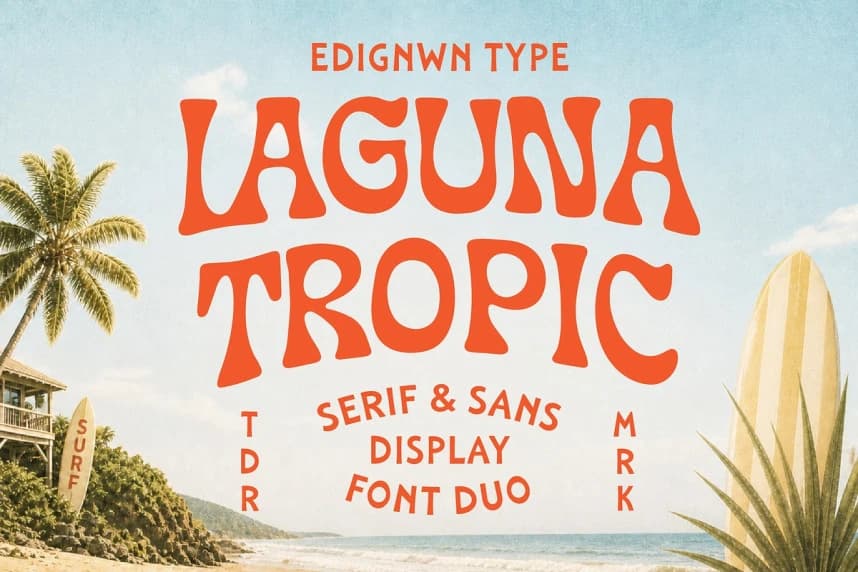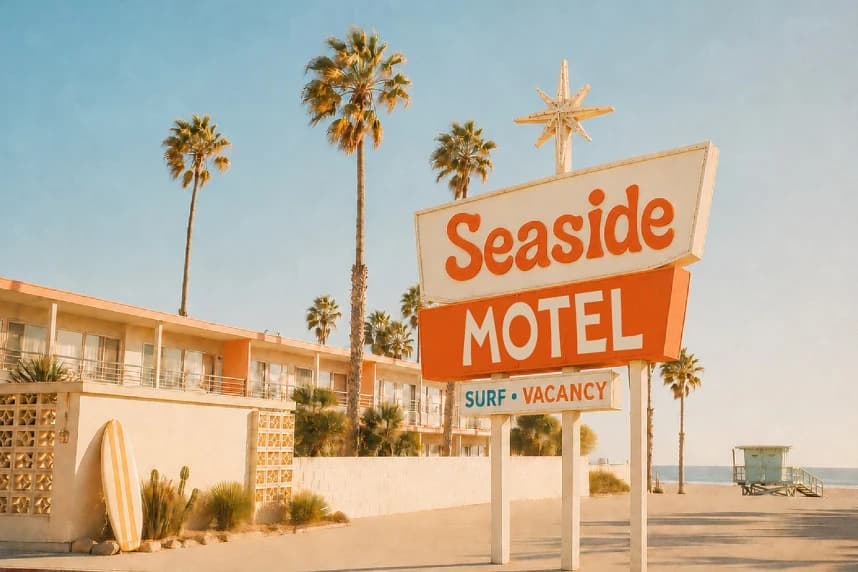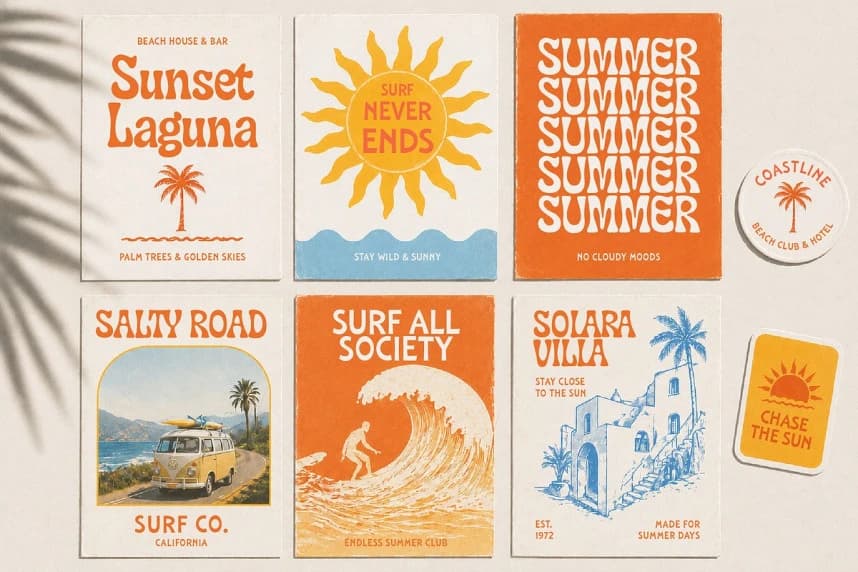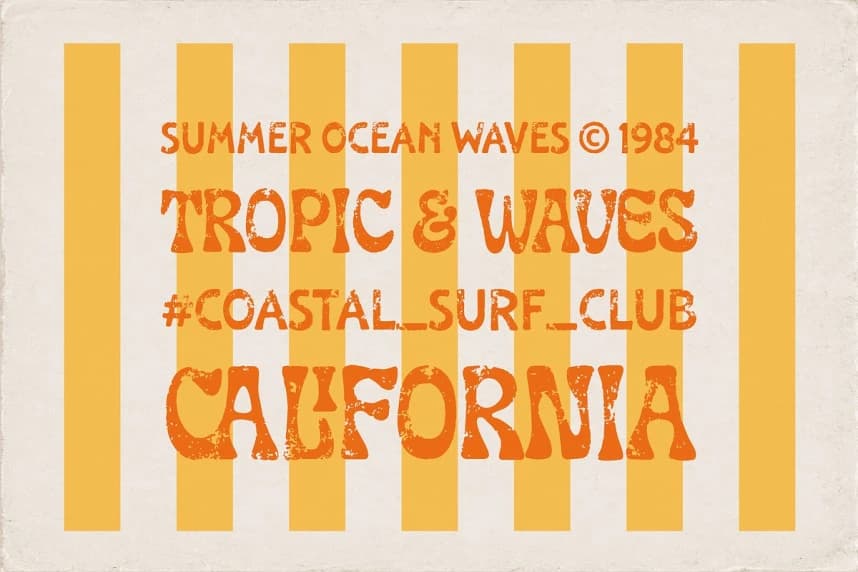
Laguna Tropic Font
Laguna Tropic Font is a serif and sans display font duo inspired by retro surf culture, tropical resorts, vintage beach motels, and endless summer days. Designed for visual branding designers, this typeface brings a warm coastal atmosphere with soft organic curves